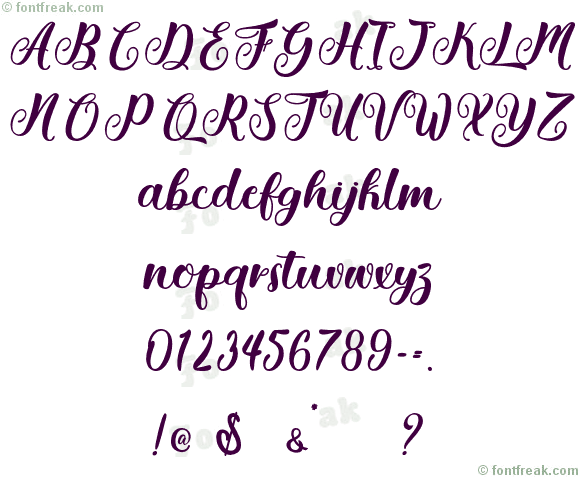
Getsu Magic - Personal Use
The Getsu Magic - Personal Use font by Suthi Srisopha is a captivating script typeface that embodies a whimsical and enchanting aesthetic. As a decorative font, it features fluid, hand-drawn letterforms that evoke a sense of warmth and personality. The stroke weight varies throughout, creating an engaging contrast that adds depth and character to each character. The spacing is well-balanced, ensuring readability while maintaining a charming, playful flow. Decorative elements, such as elegant curls and swashes, enhance the font’s visual appeal, making it perfect for projects that seek to convey a sense of magic and creativity.
This font is ideal for a variety of applications. It shines in wedding invitations, where its romantic style can beautifully complement the theme of love and celebration. Additionally, it works wonderfully for movie posters, especially for fantasy or romance genres, capturing the viewer’s attention with its unique flair. Restaurant menus can also benefit from Getsu Magic, as its inviting nature can enhance the dining experience by making the menu feel more personal and engaging. Content creators looking to add a special touch to their social media graphics will find this font equally appealing, as it stands out in a crowded digital landscape.